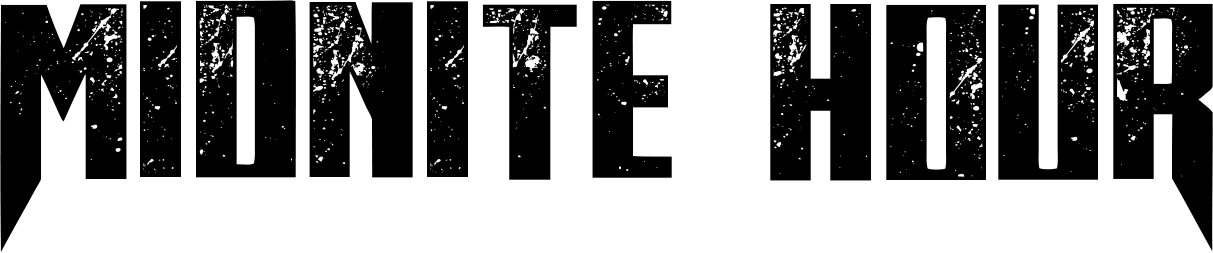
Midnite Hour Font
This is a called Midnite Hour with a mysterious and punk vibe. It can be used for any graffiti, channel banner, punk or rock concert posters album titles, and sports flyers.
It can be a good choice if you want to have a cool appearance. This is in all caps and does not include all the characters.